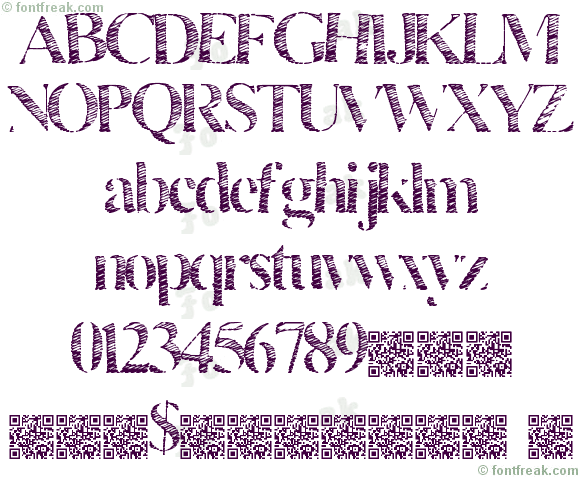
ManyTimes
About ManyTimes
ManyTimes by XEROGRAPHER FONTS is a striking display font that exudes a unique character, making it a standout choice for various creative projects. This font features a distinctive serif style, characterized by its bold strokes and textured appearance that gives it a hand-crafted feel. The visual characteristics of ManyTimes include a balanced stroke weight and moderate contrast, which enhance its readability while adding a touch of artistic flair. The decorative elements are subtle yet effective, creating an engaging visual experience for the viewer. The spacing is thoughtfully designed, allowing for clear letter differentiation, which is essential for impactful typography.
ManyTimes is ideal for a range of applications, making it a versatile addition to any designer's toolkit. It’s perfect for wedding invitations, where its elegant yet approachable style can set the tone for a romantic occasion. Additionally, this font works beautifully on movie posters, adding a dash of sophistication that can capture the essence of the film. Restaurant menus can also benefit from ManyTimes, as its unique design can enhance the dining experience by adding personality to the menu items. Content creators looking to elevate their social media graphics will find this font particularly appealing, as it draws attention and engages audiences effectively.
What sets ManyTimes apart is its ability to blend artistic expression with practicality, making it an exceptional choice for various design needs. Whether you’re crafting a personal project or working on a professional campaign, ManyTimes delivers a unique typeface that stands out in any context.